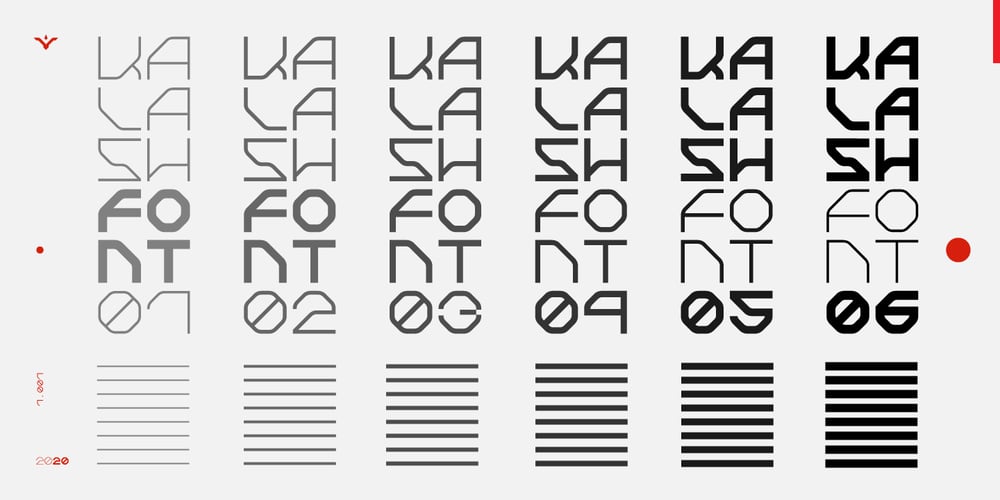
Kalash
Kalash font
Kalash Font Family was designed by Tomass Gavars and published by Tomass Gavars. Kalash contains 5 styles and family package options. Kalash is minimalistic monospaced font family. Each glyph has eased 45° angled cut and has the right properties to fit with various styles. Combine multiple weights for best results.Each font includes 230 Glyphs & Latin support.